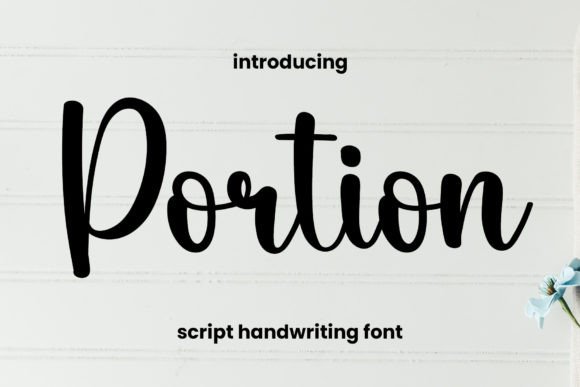
Introducing Portion Font: The Ultimate Stylish and Dainty Script Font
Are you looking for a font that can add a touch of elegance and sophistication to your projects? Look no further than Portion Font, a beautiful script font that is perfect for a wide range of applications. In this article, we’ll take a closer look at Portion Font, its features, and how it can be used to elevate your designs.
What is Portion Font?
Portion Font is a stylish and dainty script font that is designed to add a touch of luxury and refinement to your projects. It is a carefully crafted font that features beautiful, flowing lines and a delicate appearance that is sure to impress. Whether you’re working on a logo, branding project, label, or any other type of design, Portion Font is the perfect choice.
Key Features of Portion Font
So, what makes Portion Font so special? Here are just a few of its key features:
- Stylish and dainty design: Portion Font features a beautiful, elegant design that is perfect for adding a touch of sophistication to your projects.
- Script font: As a script font, Portion Font features flowing lines and a connected letter style that is perfect for creating beautiful, handwritten-style text.
- Versatile: Portion Font is suitable for a wide range of projects, including logos, branding projects, labels, photography, watermarks, and more.
Use Cases for Portion Font
So, what types of projects is Portion Font best suited for? Here are just a few ideas:
- Logos and branding projects: Portion Font is perfect for creating elegant and sophisticated logos and branding materials.
- Labels and packaging: Add a touch of luxury to your labels and packaging with Portion Font.
- Photography: Use Portion Font to add beautiful, elegant text to your photographs.
- Watermarks: Portion Font is a great choice for creating elegant watermarks that add a touch of sophistication to your images.
- Special events: Use Portion Font to create beautiful, elegant invitations, programs, and other materials for special events.
Benefits of Using Portion Font
So, why should you choose Portion Font for your next project? Here are just a few benefits of using this beautiful font:
- Adds elegance and sophistication: Portion Font is designed to add a touch of luxury and refinement to your projects.
- Versatile: Portion Font can be used for a wide range of projects, making it a great addition to your font library.
- Unique and creative: Portion Font features a unique and creative design that will help your projects stand out from the crowd.
Tips for Using Portion Font
Here are a few tips for getting the most out of Portion Font:
- Use it sparingly: Portion Font is a elegant and sophisticated font, so use it sparingly to add a touch of luxury to your projects.
- Experiment with different sizes and colors: Try out different sizes and colors to see what works best for your project.
- Pair it with other fonts: Portion Font can be paired with other fonts to create a unique and creative look.
- Use it for headlines and titles: Portion Font is perfect for headlines and titles, where its elegant and sophisticated design can really shine.
In conclusion, Portion Font is a beautiful and elegant script font that is perfect for adding a touch of luxury and refinement to your projects. With its stylish and dainty design, versatile use cases, and easy-to-use features, Portion Font is a great addition to any font library. Whether you’re working on a logo, branding project, label, or any other type of design, Portion Font is the perfect choice.